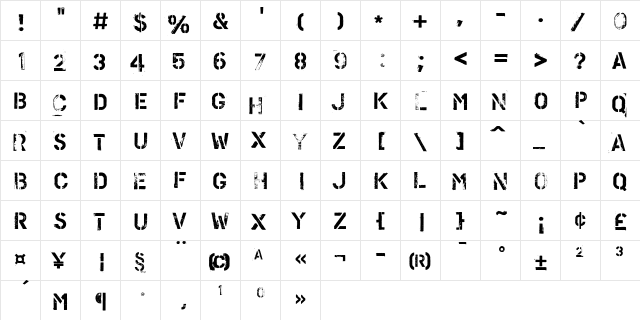
PF Stamps Pro Metal Regular
Design Context for PF Stamps Pro Metal Typeface
PF Stamps Pro Metal borrows the utilitarian aesthetic of stencil lettering, with its characteristic cutaways and no-frills construction lending an industrial edge.
A strong choice for packaging that needs edge, warehouse aesthetics, and rough-and-ready visual identities.
Pro Tip: Use PF Stamps Pro Metal at large sizes on packaging, posters, or apparel where the stencil cutaways read clearly. Avoid small sizes where those gaps become visual noise.